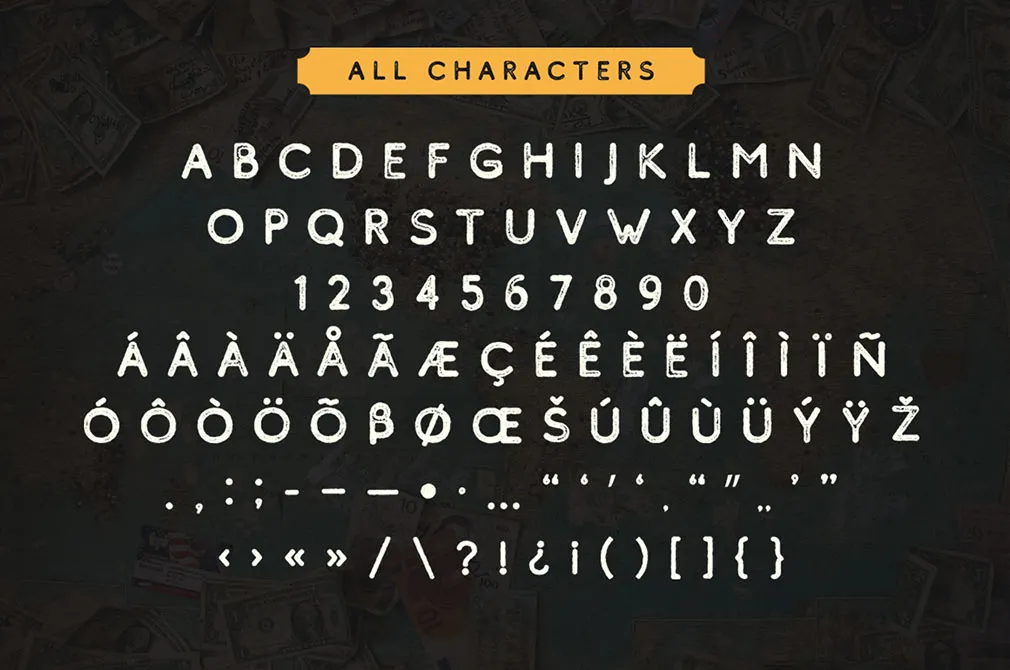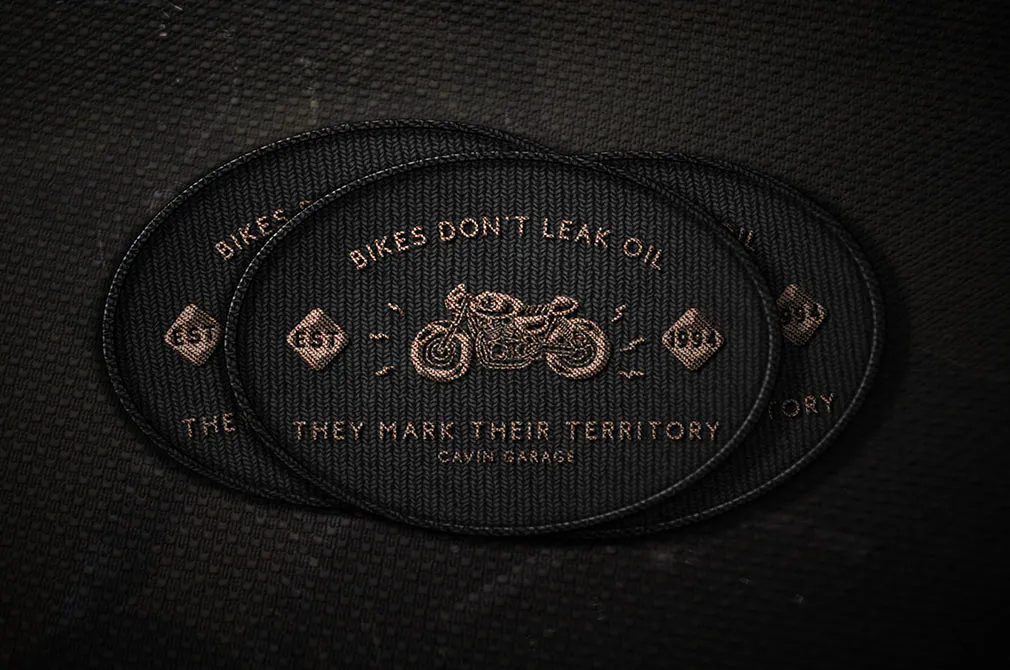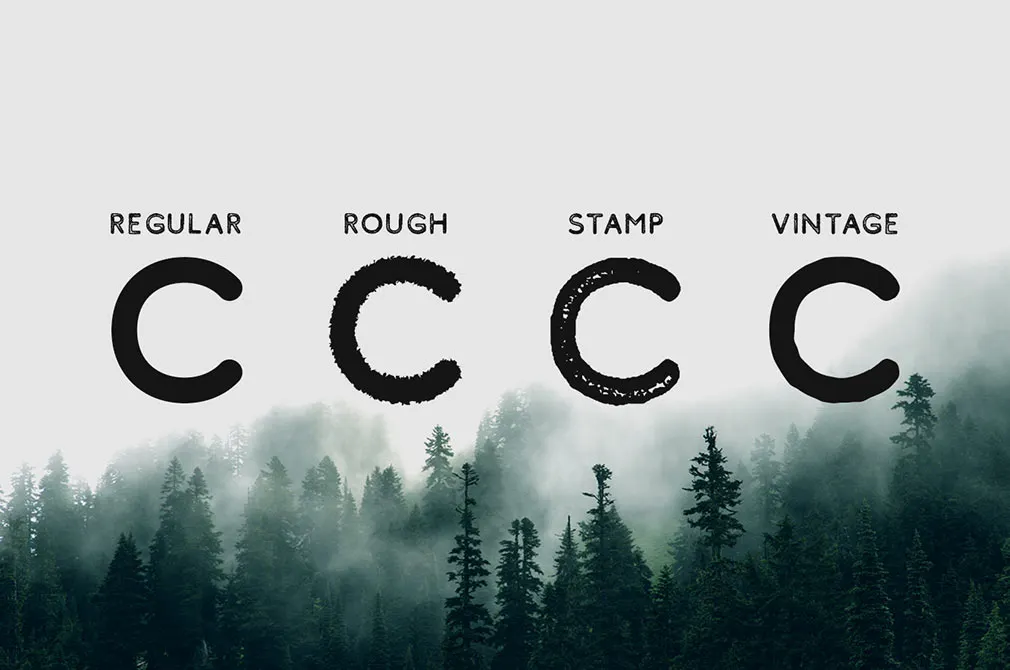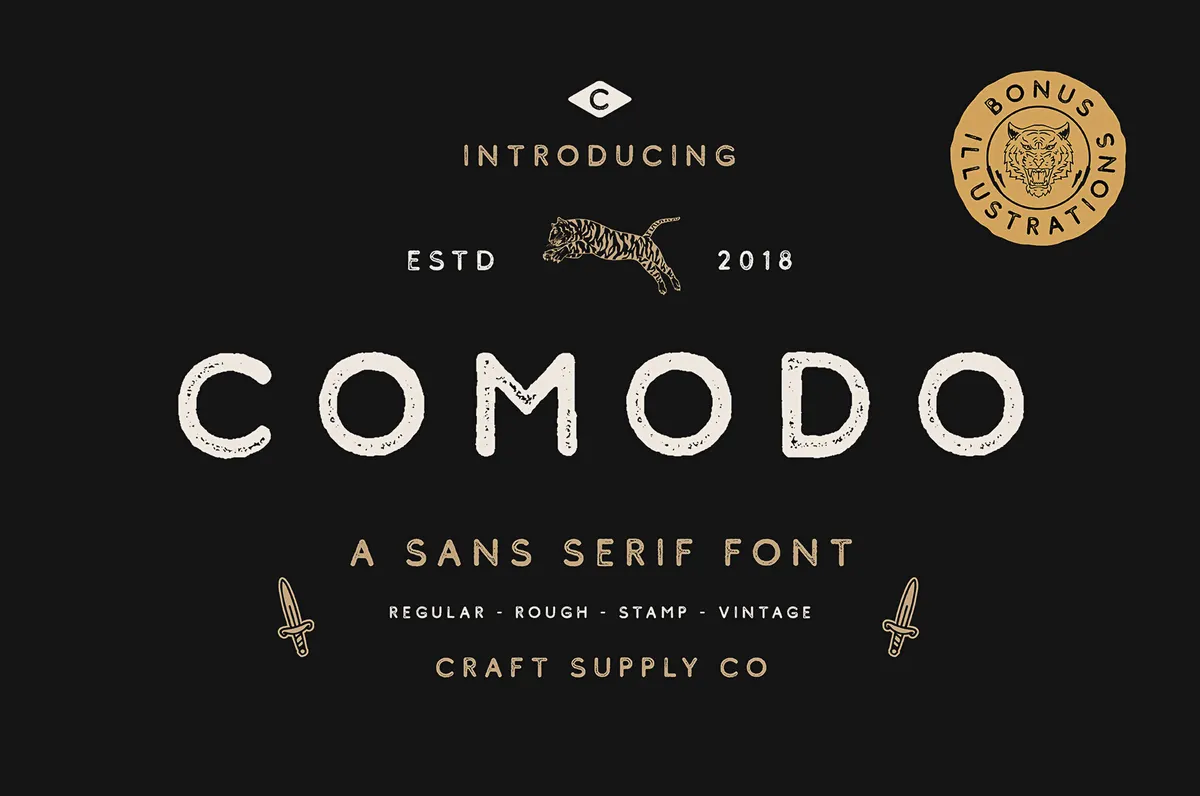
Comodo Sans Serif
Isn't it nice when a font is accompanied by a suitable set of illustrations? It makes your design more coherent and convincing — the features any creator seeks for. Comodo has it all!
Comodo font family includes 4 font styles. It can be used to create almost all types of design projects like print materials, to begin with! Just use your imagination and some graphic design set in Extras, your project will become more alive and look more impressive. There's a bouquet of possibilities with included illustrations! You can make a greeting card or a package design, brand identity, any DIY project, book title, pop vintage design, or any other pretty and trendy thing.